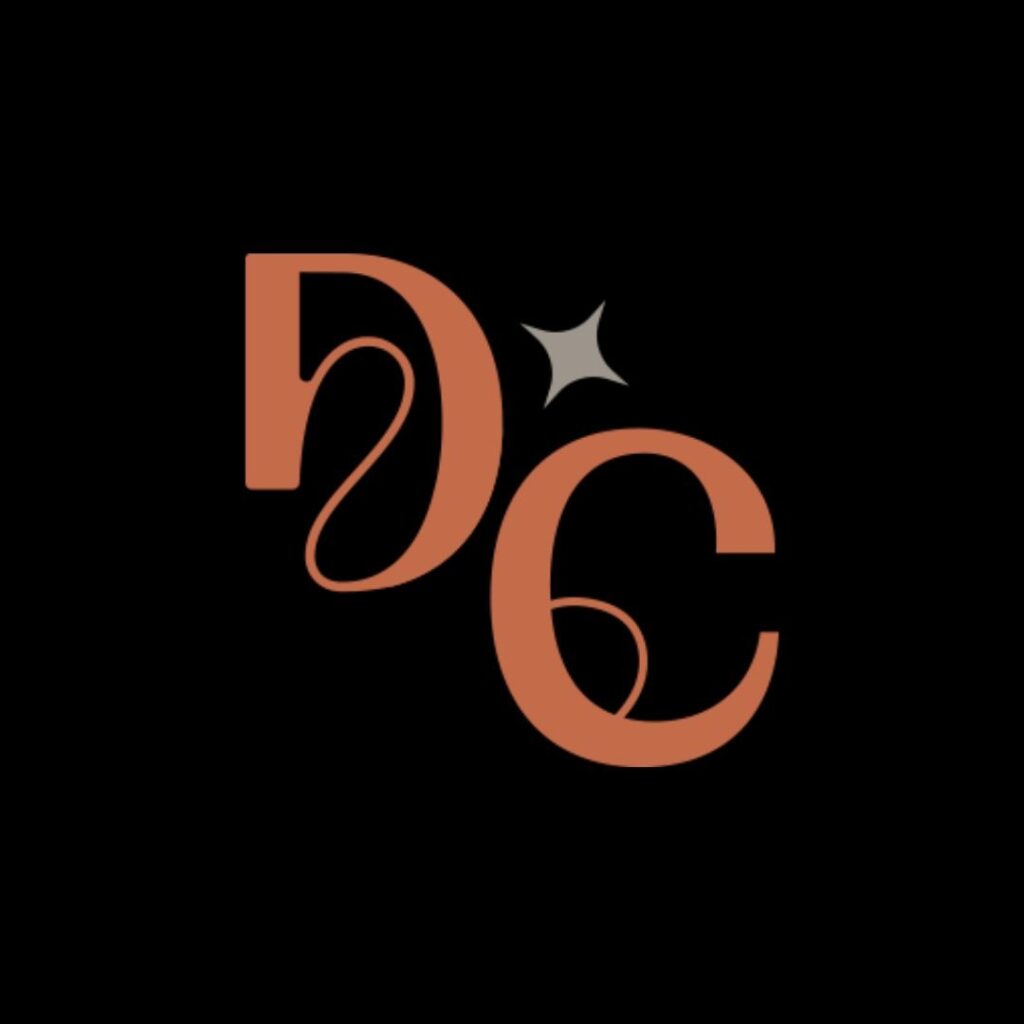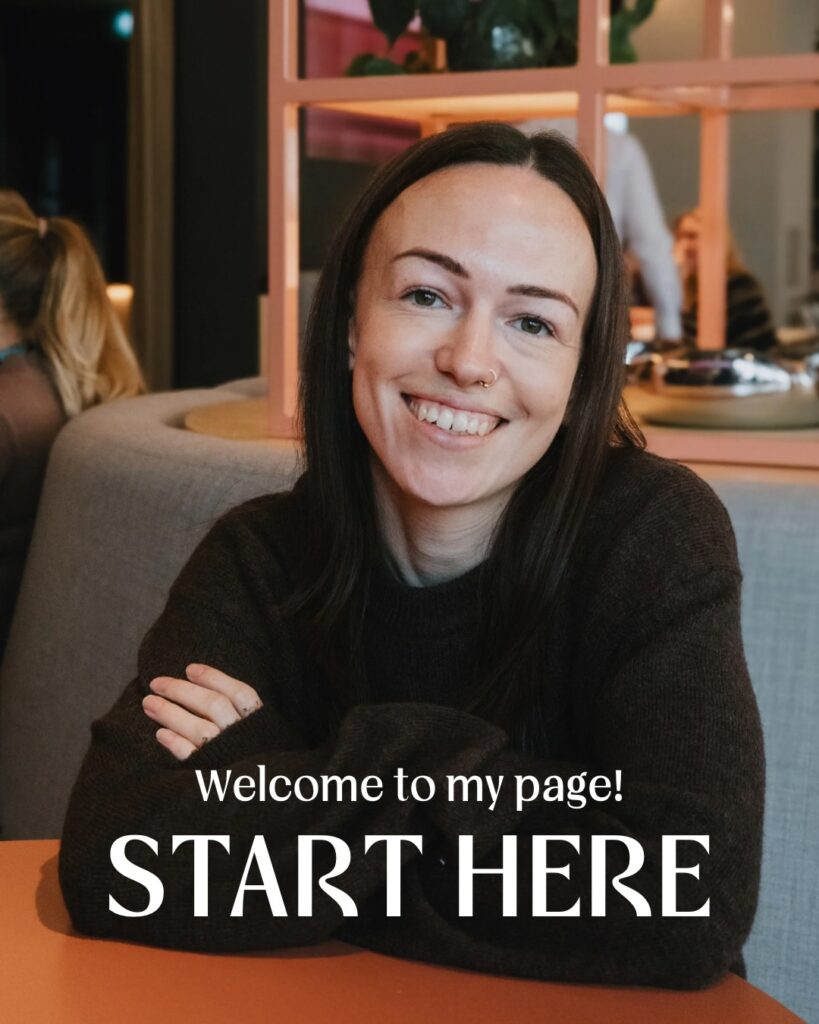
Danielle Dance
FONT IN USED: VOGERA
Danielle Dance creates a welcoming space for movement, connection, and self-expression through accessible commercial dance workshops. Built around energy and community, the platform encourages dancers of all levels to grow with confidence while enjoying the process.
Set in Vogera, the visual identity reflects a balance between expressive rhythm and structural clarity—supporting dynamic content while maintaining a clean and contemporary presence across digital platforms.